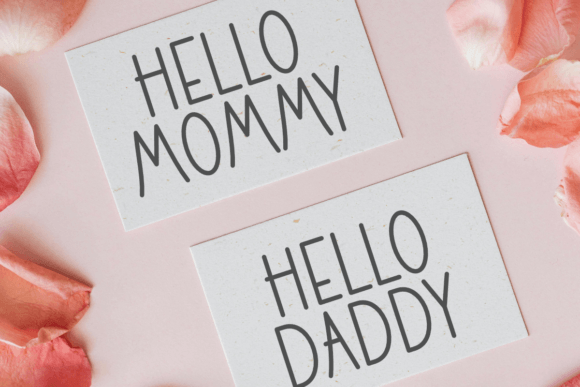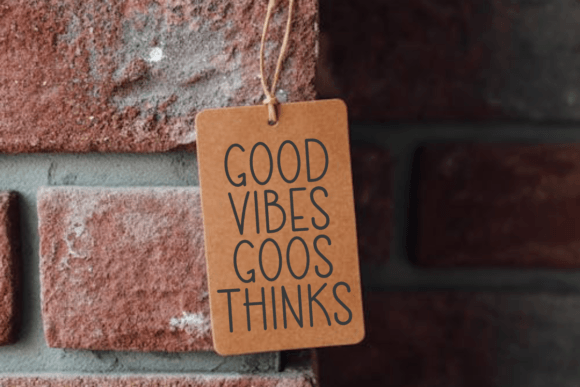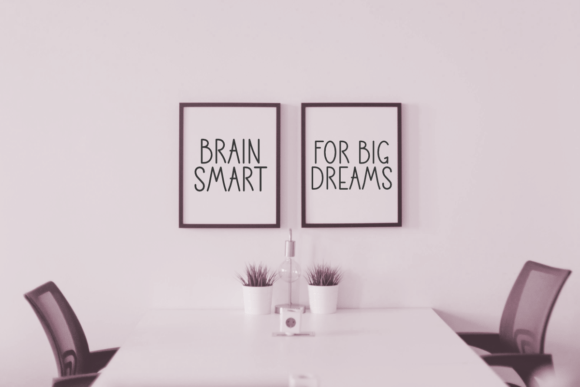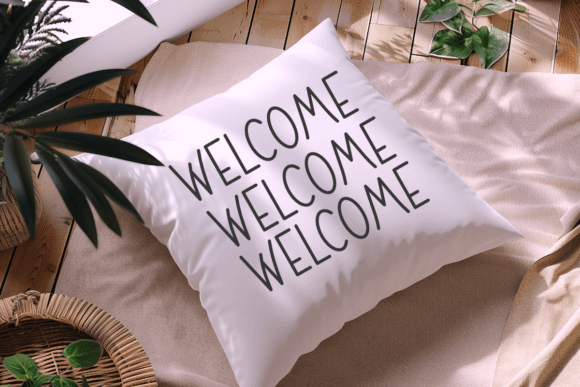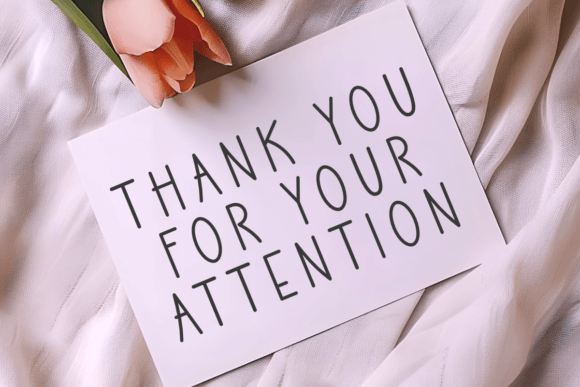
Introduction to Highscore Font
Remember the thrill of creating a design that truly stands out? The rush of excitement as your project comes together, and you can’t wait to share it with the world? For designers, that moment is what makes all the hard work worth it. And with the right design resource, it can happen more often.
One such resource is the Highscore Font, a delightful and minimalist sans serif font that’s perfect for a wide range of creative projects. Whether you’re crafting greeting cards, designing wedding invitations, or creating labels for your latest product, this high-quality font is sure to elevate your work. With its transparent background and clean lines, Highscore Font is a valuable addition to any designer’s toolkit.
Key Features of Highscore Font
- Unique and futuristic design style, perfect for a creative project.
- High-quality font with a transparent background, ideal for use in various design applications.
- Features a bold and eye-catching design, ideal for use in titles, headings, and other prominent text elements.
- Perfect for use in video games, apps, and other interactive media where high scores and achievements are displayed.
Honest Review: Highscore Font
As a designer, I’m always on the lookout for unique and high-quality design resources to enhance my creative projects. Recently, I had the chance to try out the Highscore Font, and here’s my honest review.
- ✨ High-quality typography: The Highscore Font boasts clean and crisp lines, making it perfect for a variety of design applications.
- ✨ Transparent background: The font’s transparent background makes it easy to layer over images or other design elements.
- ⚠️ Limited style options: While the font is clean and crisp, it’s a bit limited in terms of style options, which may not be ideal for designers looking for a more unique look.
- ⚠️ Not suitable for all projects: The font’s minimalist design may not be the best fit for projects that require a more bold or dramatic look.
Overall, I’d say the Highscore Font is a solid addition to any design resource collection. While it may not be the most versatile font out there, it’s a great option for designers looking for a high-quality, easy-to-use font for their creative projects.
Designing with Highscore Font
Tips for Getting the Most Out of Highscore Font
To get the most out of Highscore Font, use it in combination with other design elements to create a unique and visually appealing project. Experiment with different font sizes, colors, and styles to find the perfect combination for your design.
Common Use Cases for Highscore Font
Highscore Font is perfect for any high-quality, creative project, such as a game, a movie, or a music album. It’s also great for use in graphic design, web design, and digital art projects.